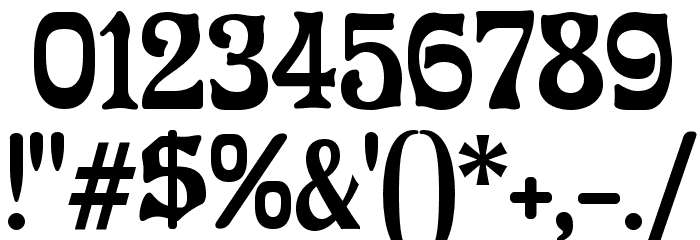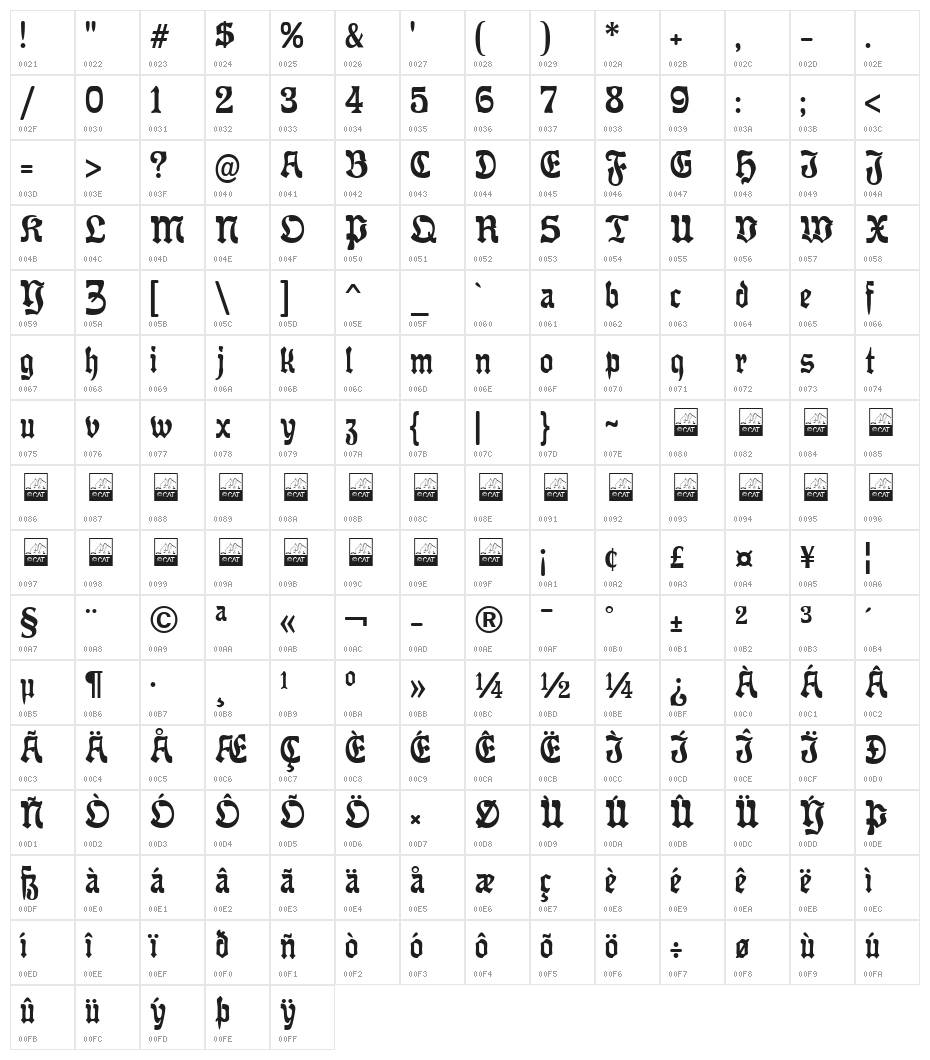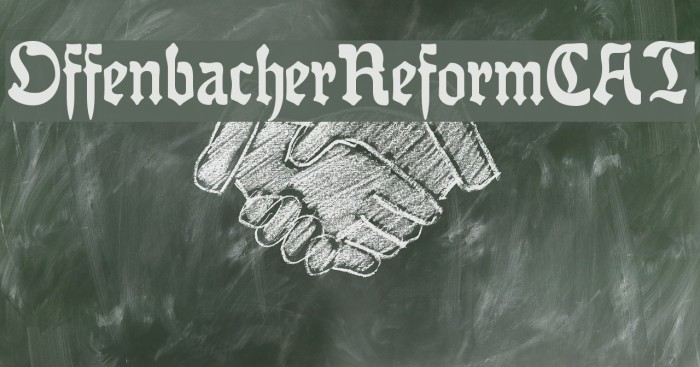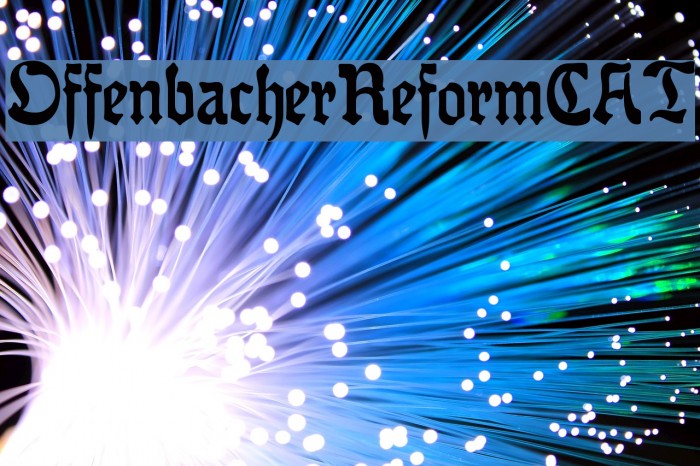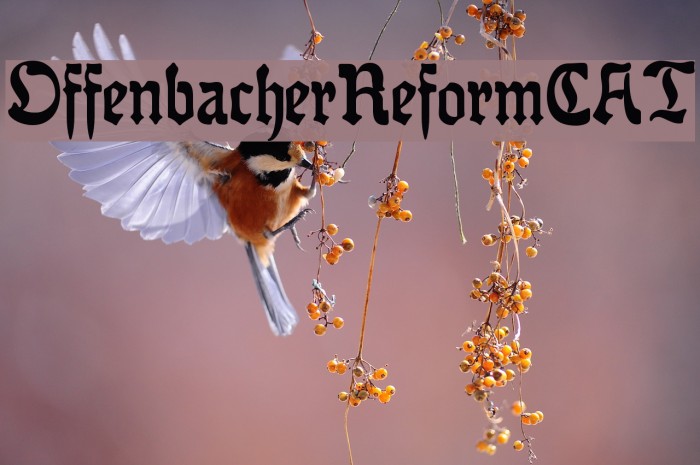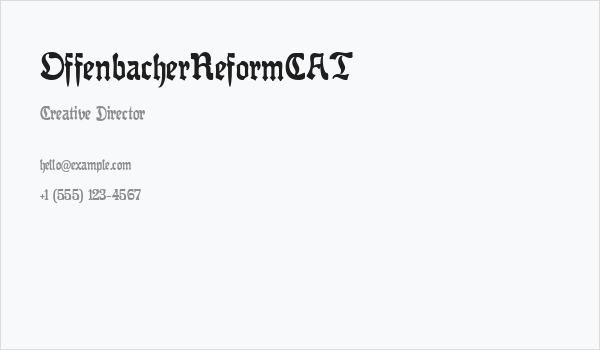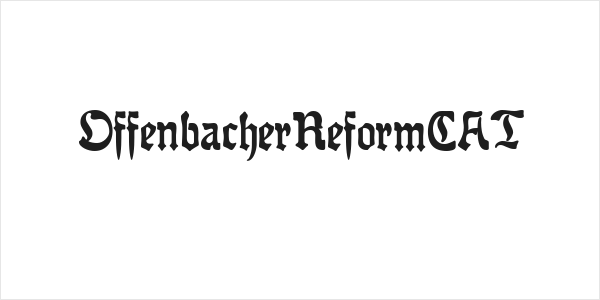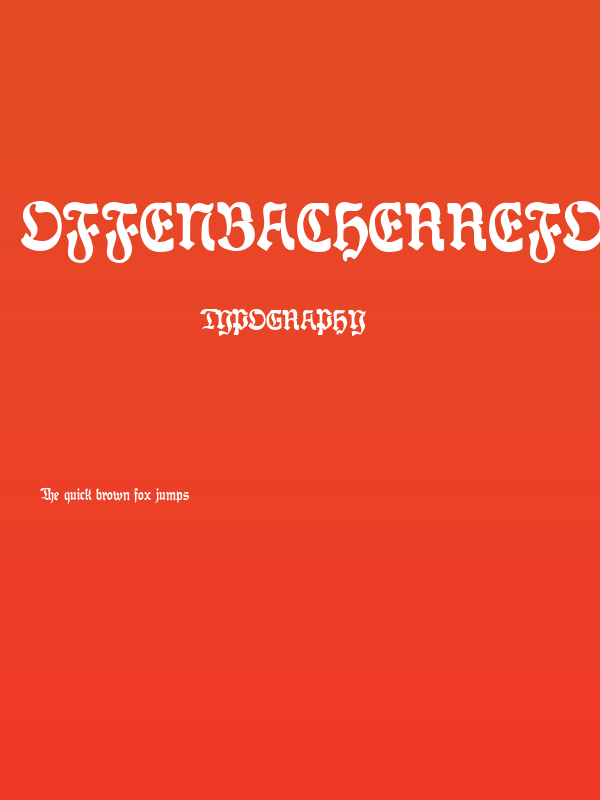
OffenbacherReformCAT Font
OffenbacherReformCAT Description
This font embodies a traditional blackletter style, characterized by its bold, angular strokes and intricate detailing. The uppercase letters exhibit a strong, authoritative presence with sharp serifs and a gothic flair. The lowercase letters maintain a consistent style, offering a harmonious flow with their ornate curves and pointed edges. Numerals are robust and maintain the same gothic aesthetic, ensuring readability while preserving the font's unique style. Special characters are crafted with the same attention to detail, making them suitable for decorative purposes. Overall, this font exudes a historical and formal vibe, reminiscent of medieval manuscripts and traditional calligraphy.
| Proposed Projects | Ideal for historical documents, event invitations, branding for vintage-themed products, or any project requiring a touch of classic elegance. |